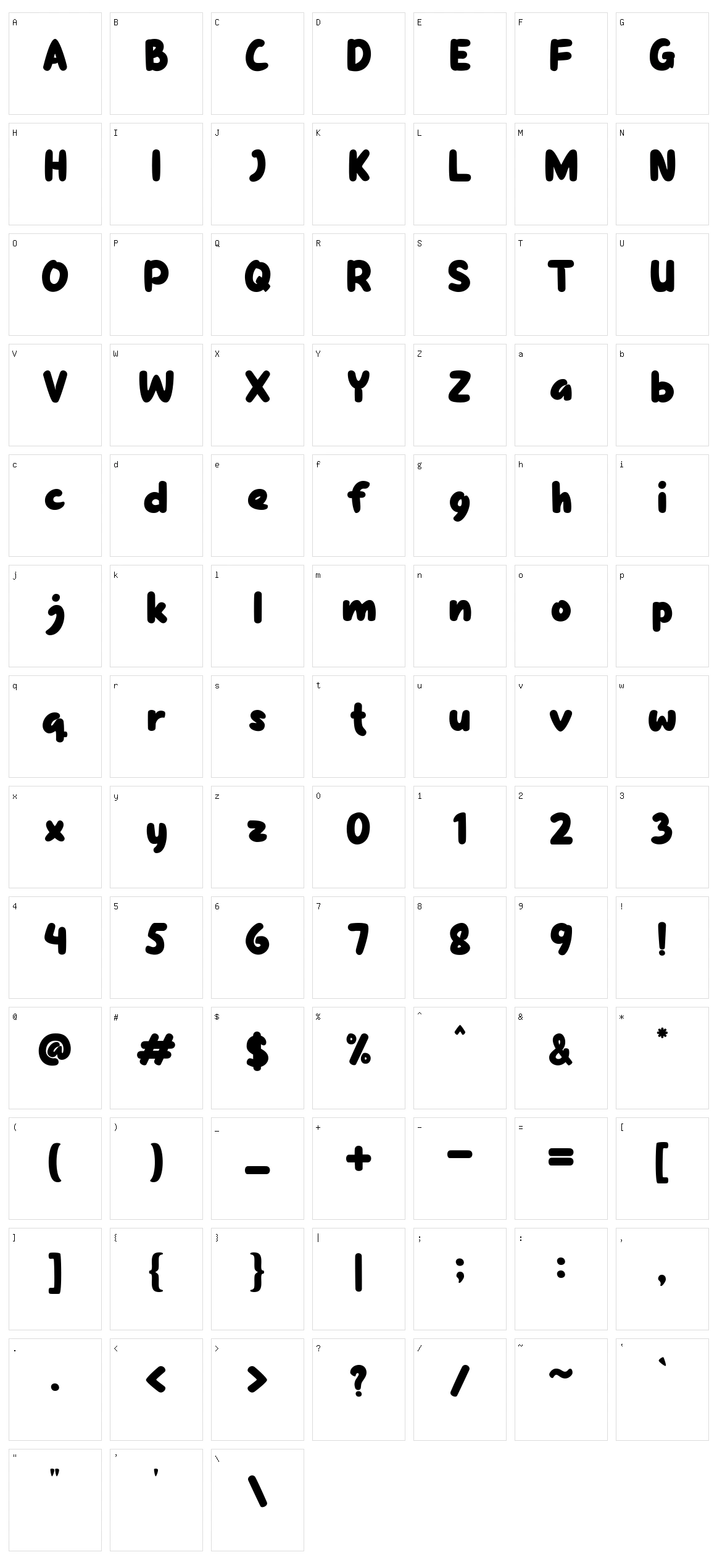
The free font Yellow Candy is carefully designed by Dacatype Studio, showcasing a thoughtful balance of creativity and usability and falls under the Cartoon font style. When you download the ZIP file, it contains only 51.24 KB of font files, making it lightweight and quick to download. Please review the license details below to understand permitted usage and distribution rights. If license information is not available, we recommend using this font for personal projects only or contacting the author directly for commercial usage permissions.